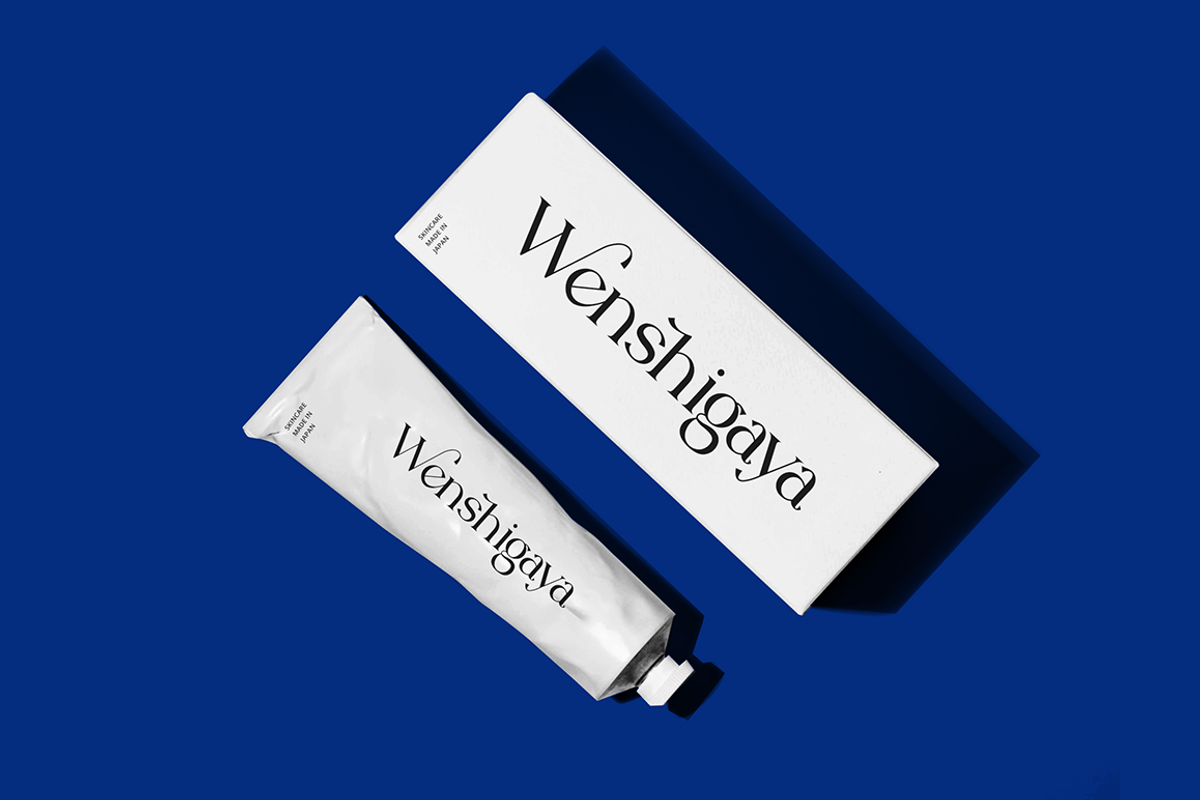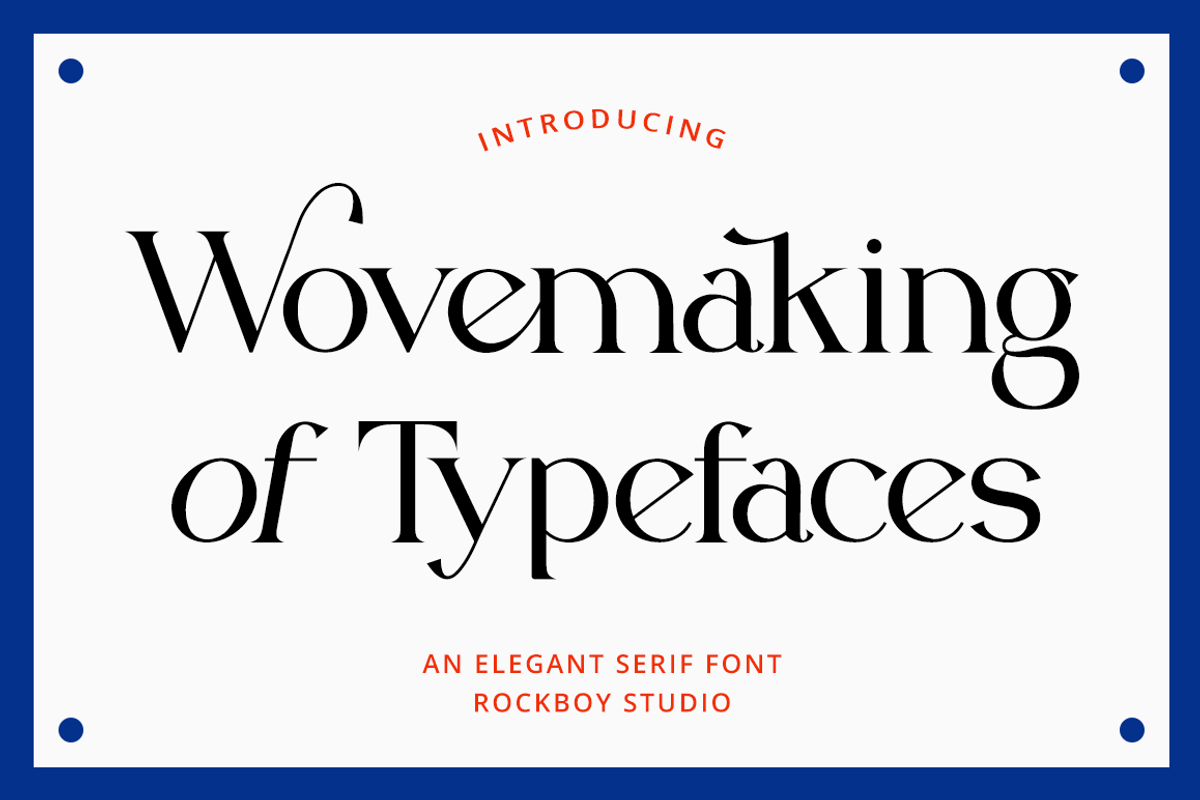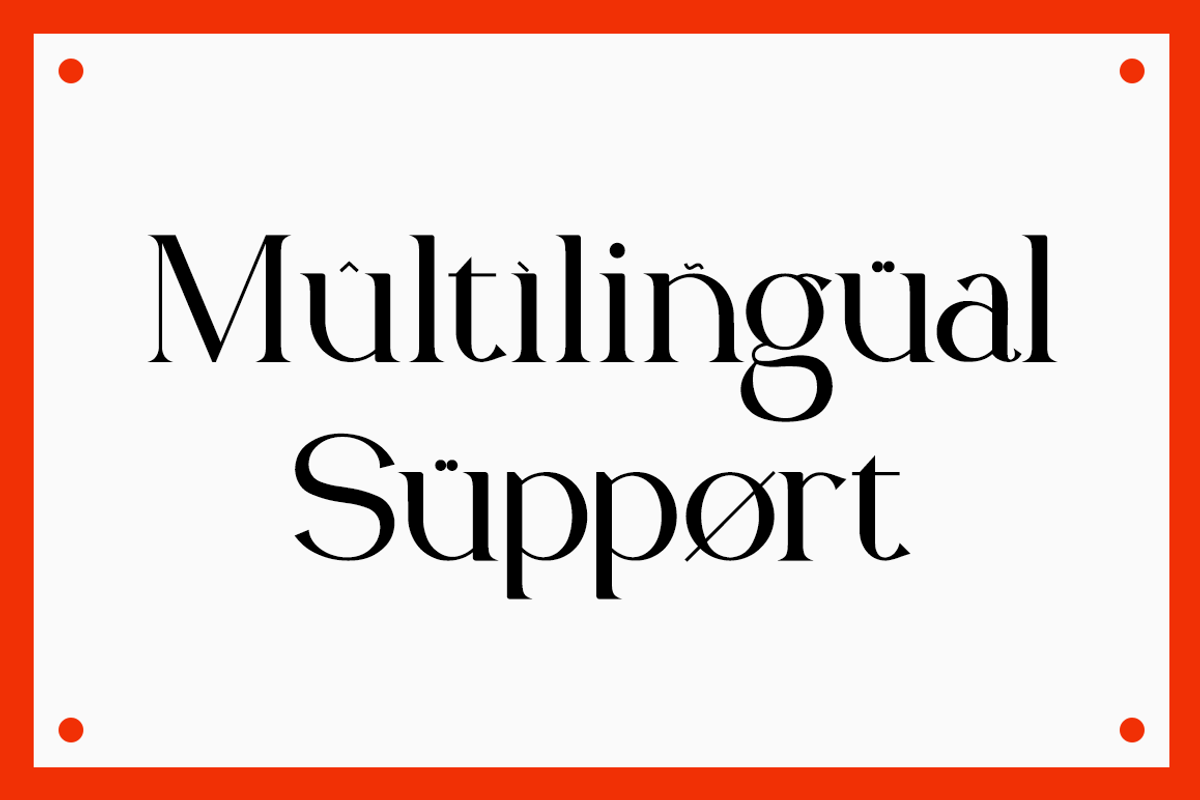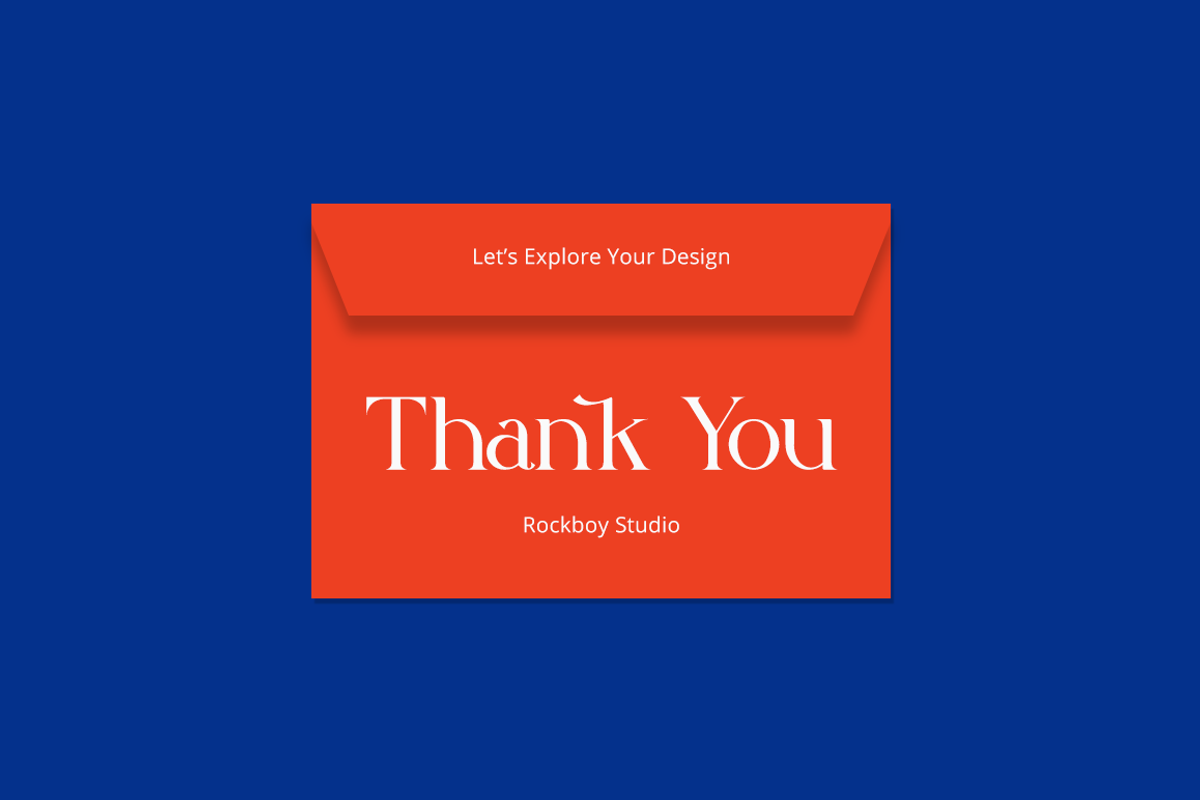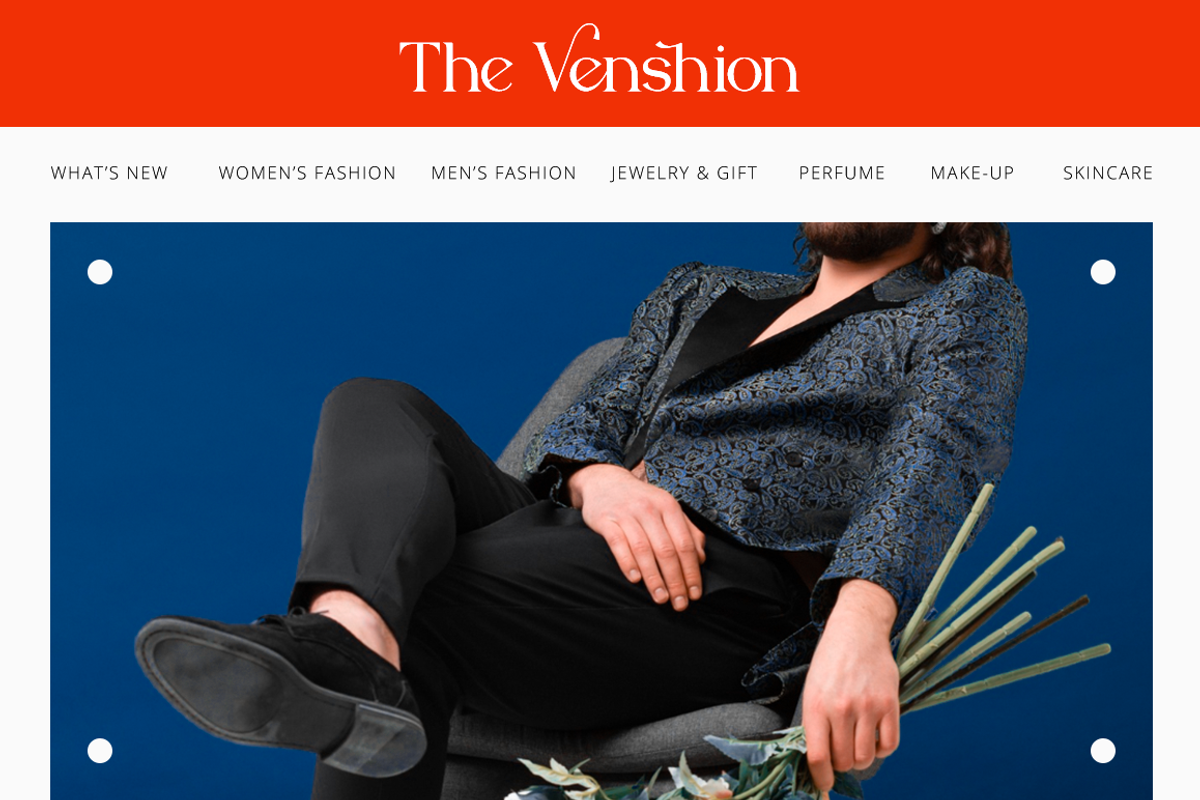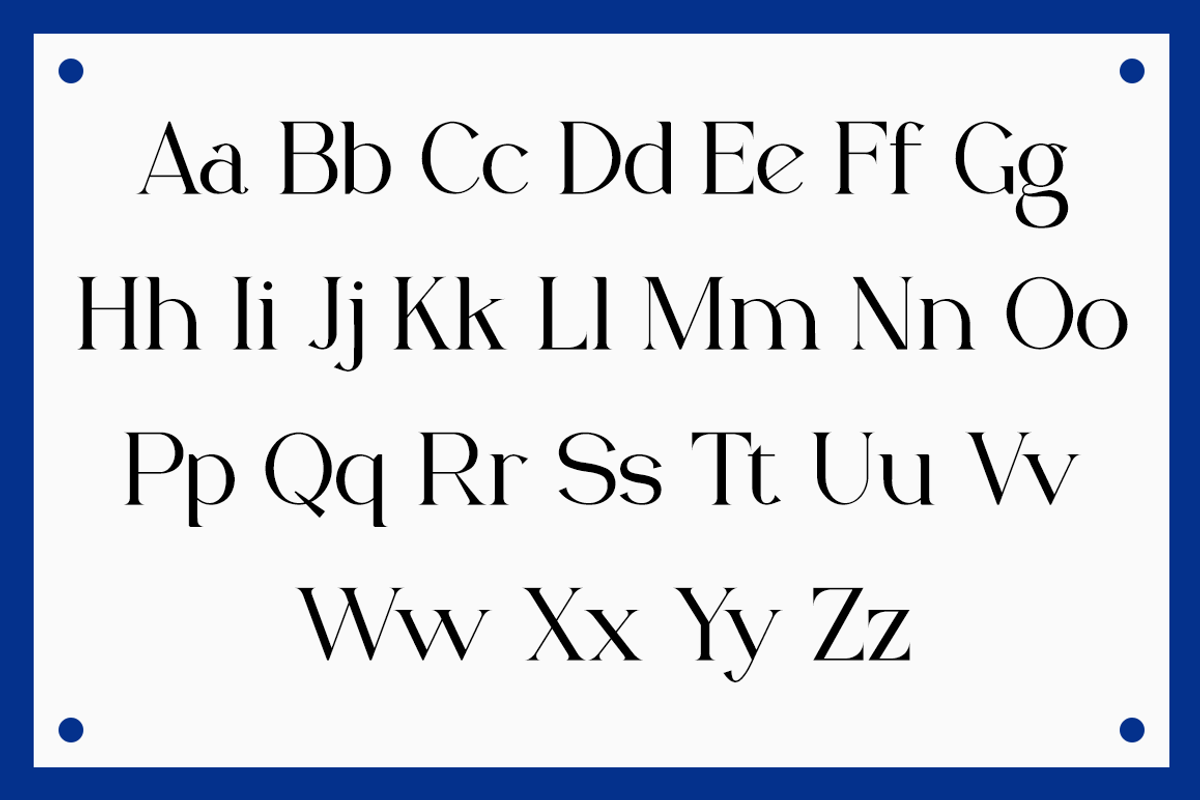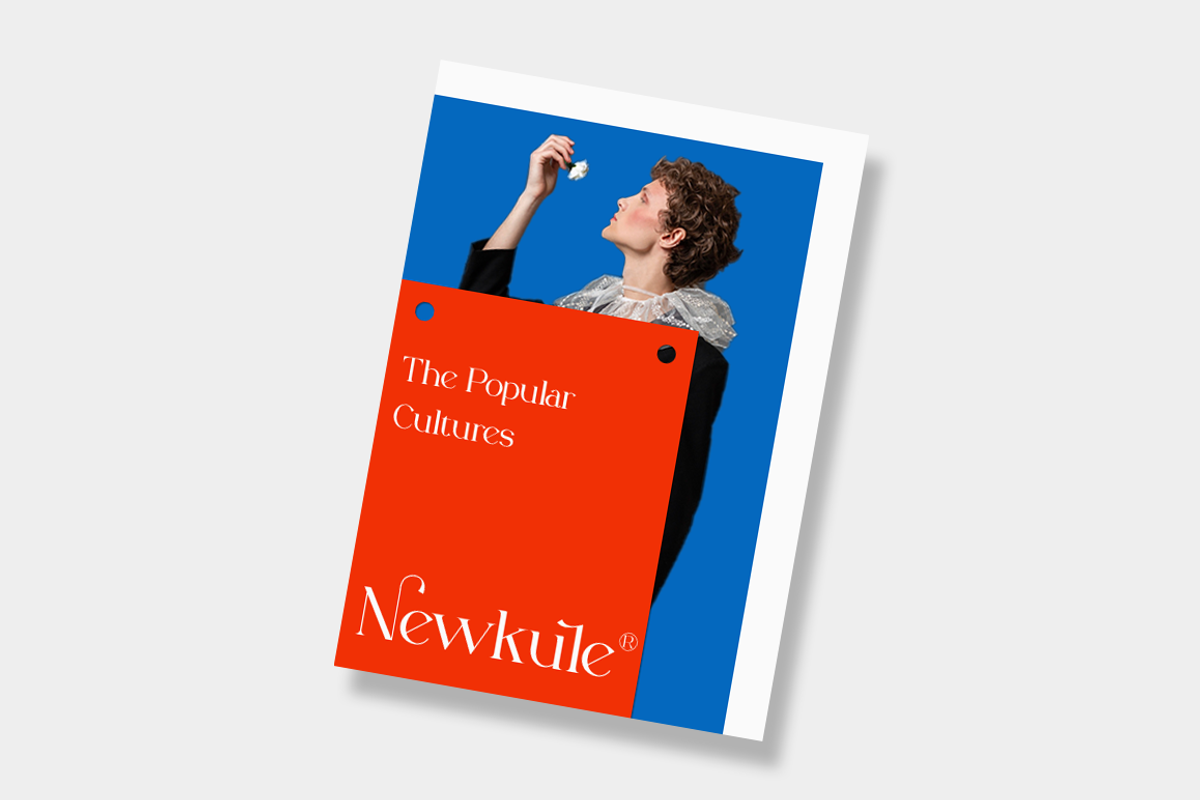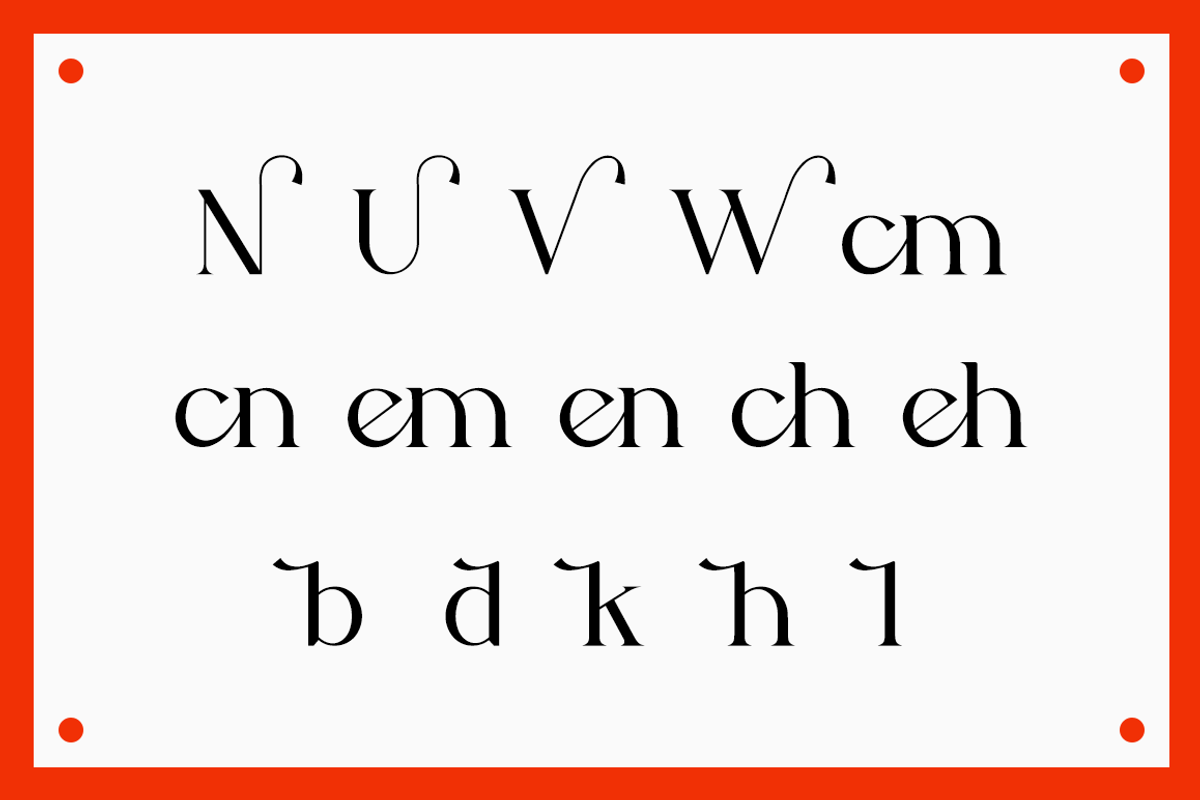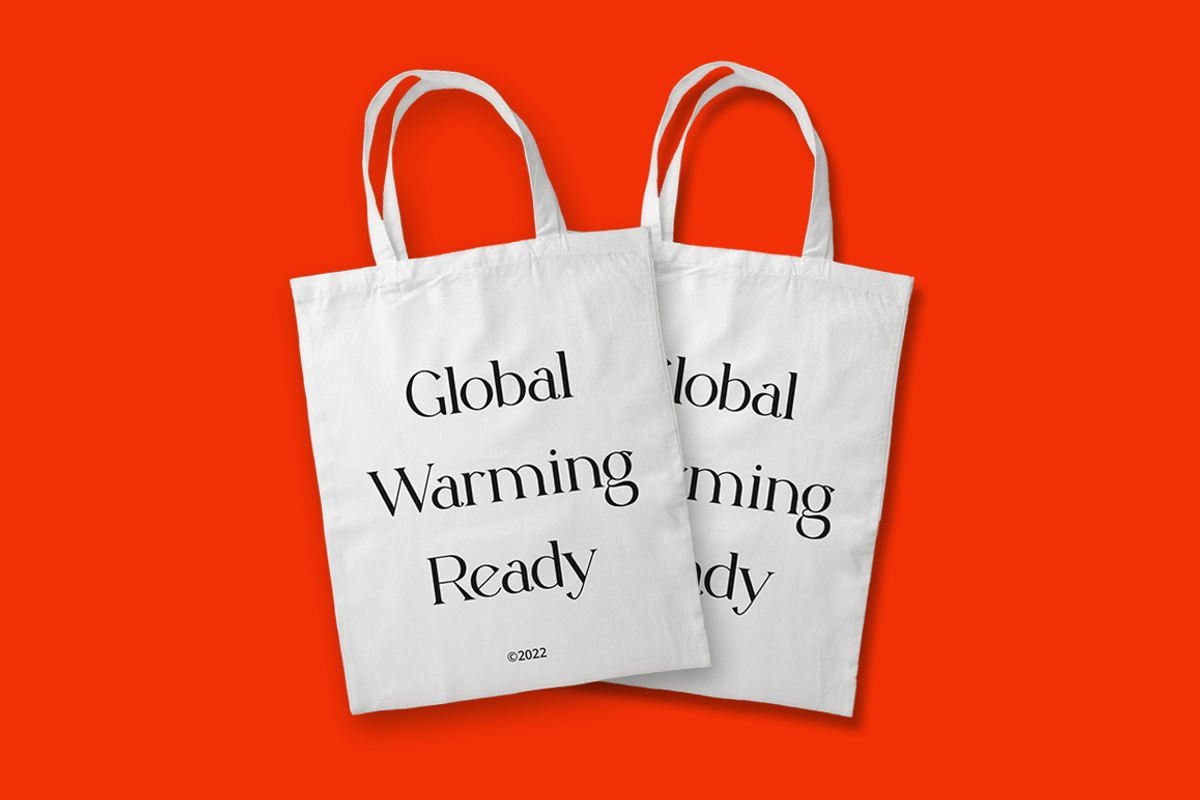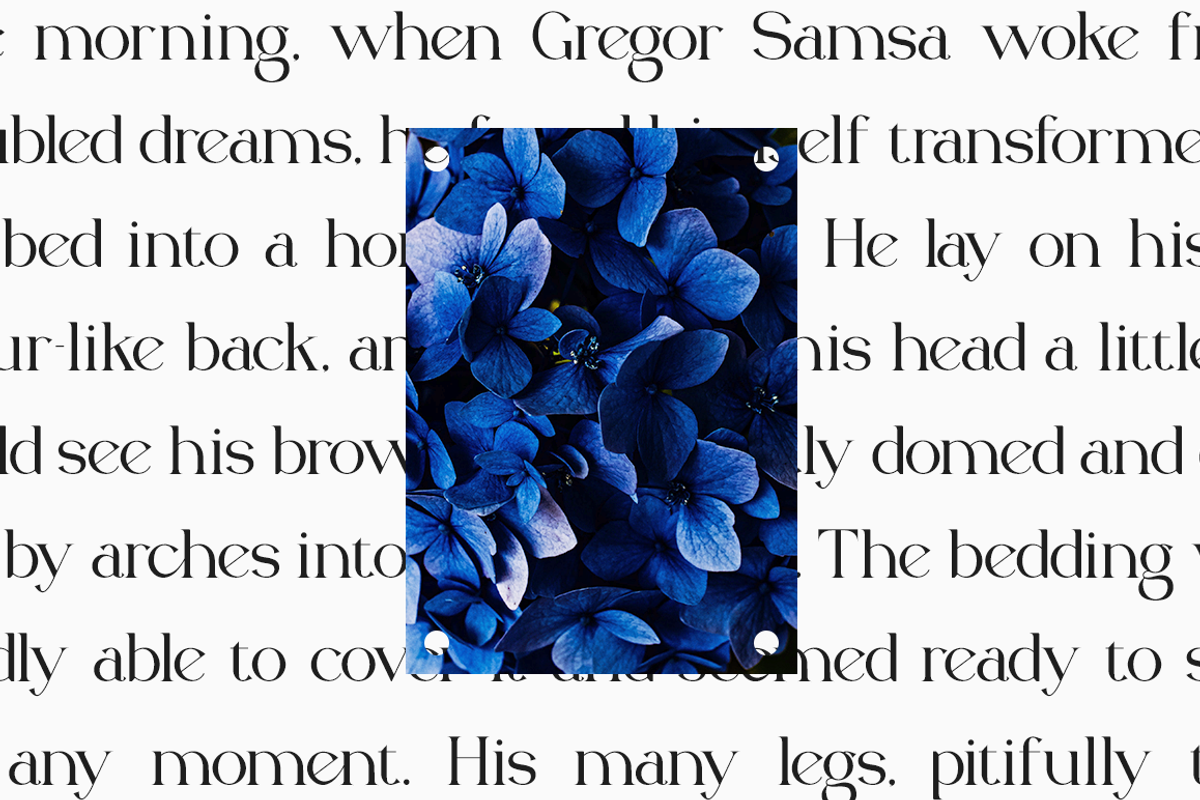
Wovemaking of Typeface
Wovemaking of Typeface is an elegant and beautiful sans serif font. It will elevate a wide range of crafting ideas, from cards to branding, labels, and many more. Add it to any of your creative projects, and make them look extraordinary!